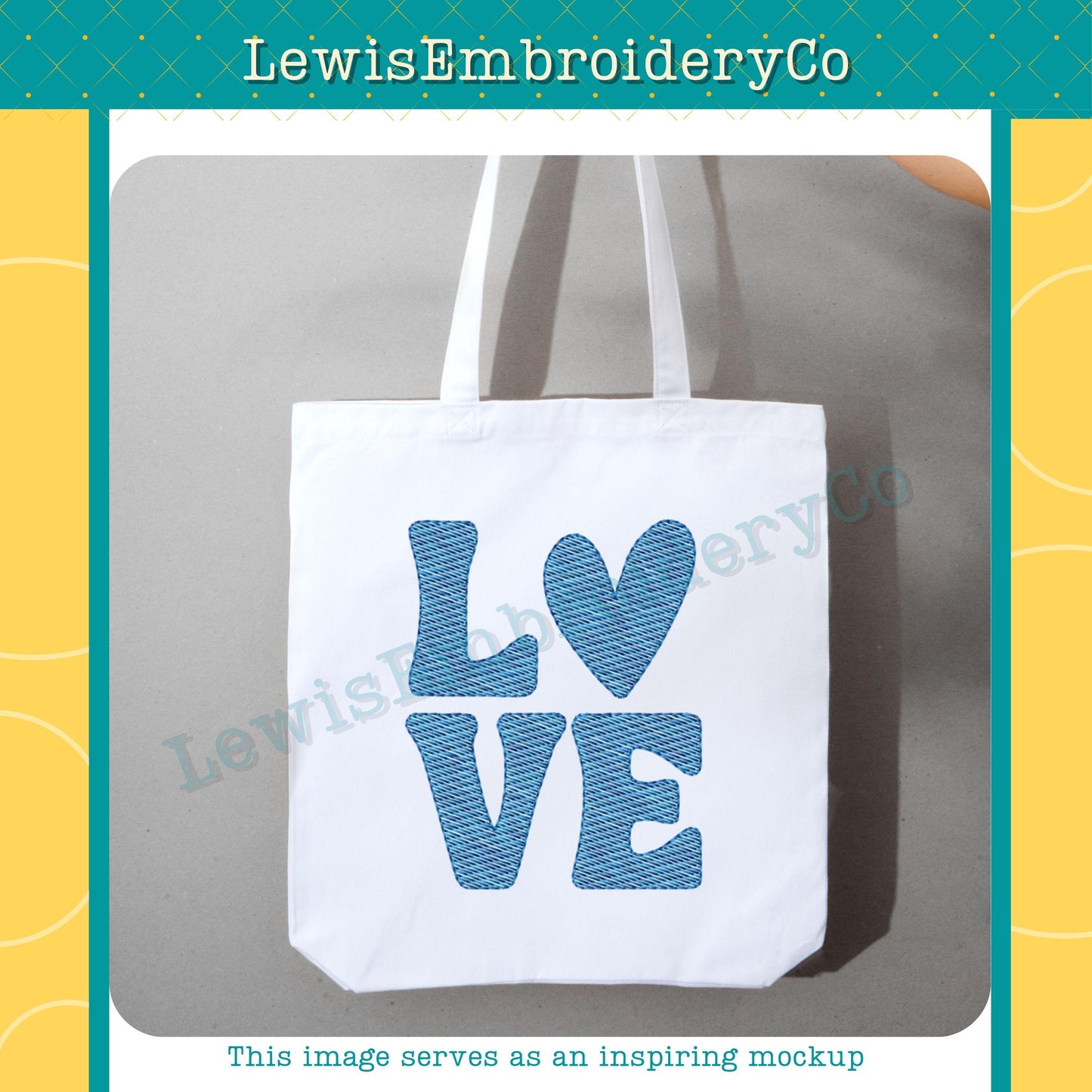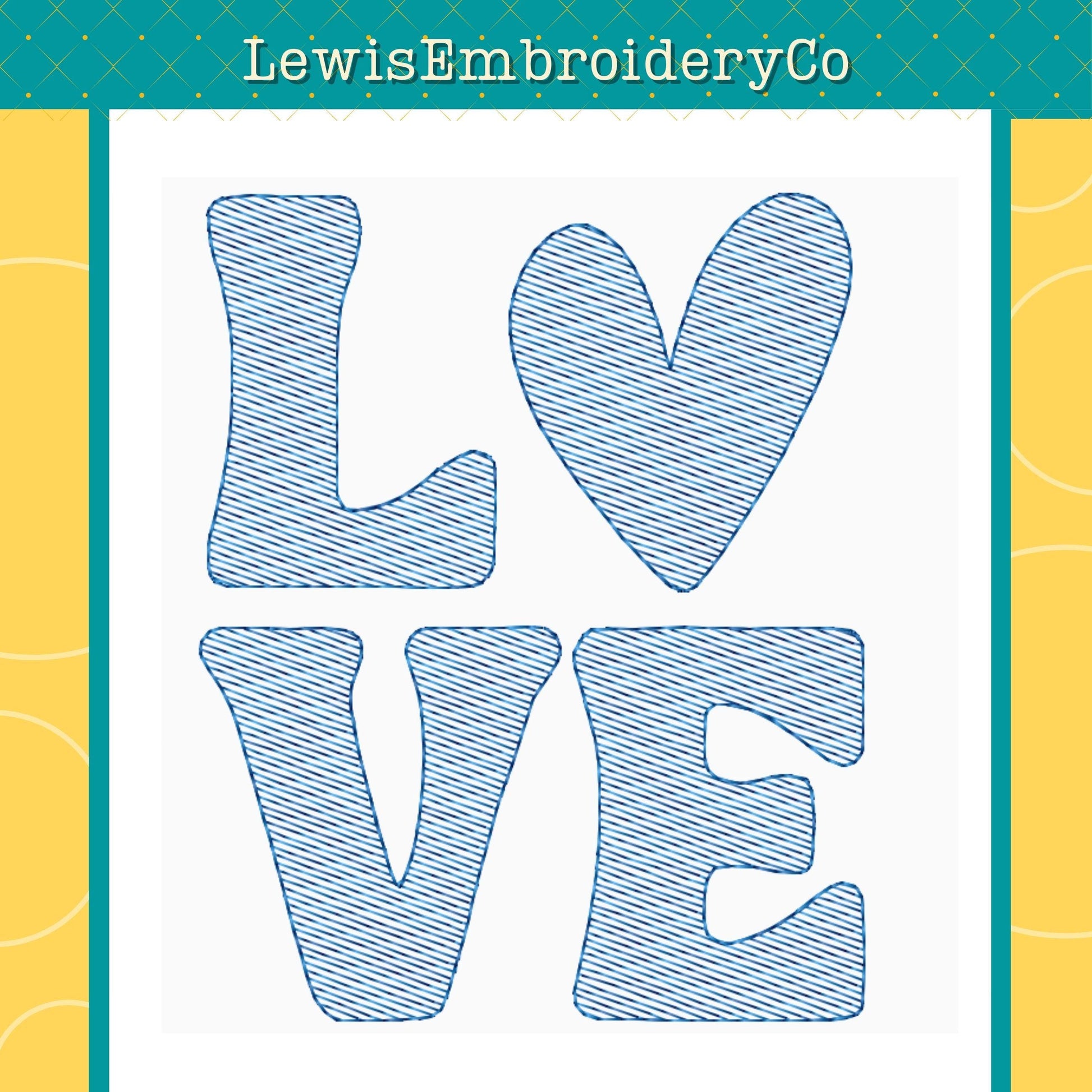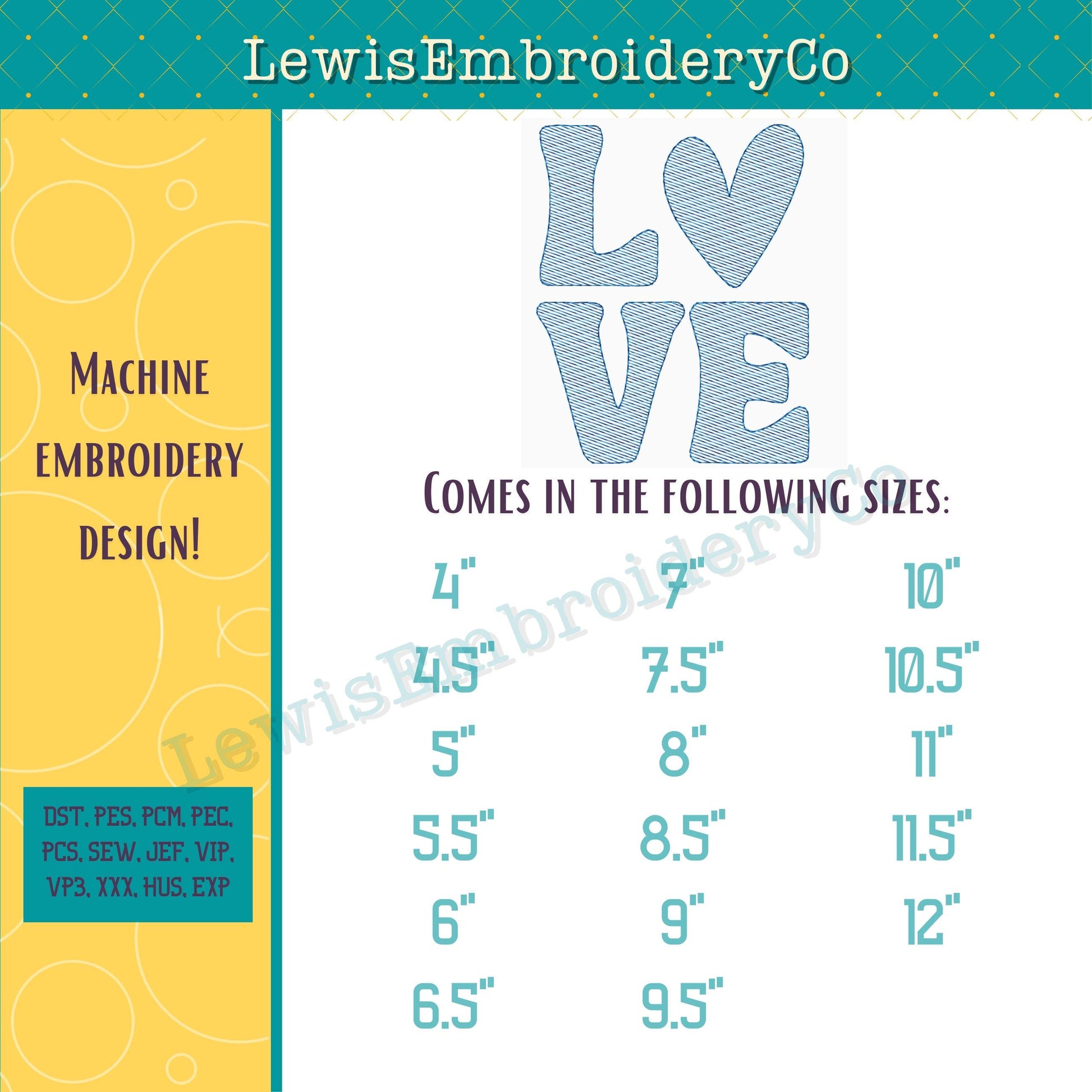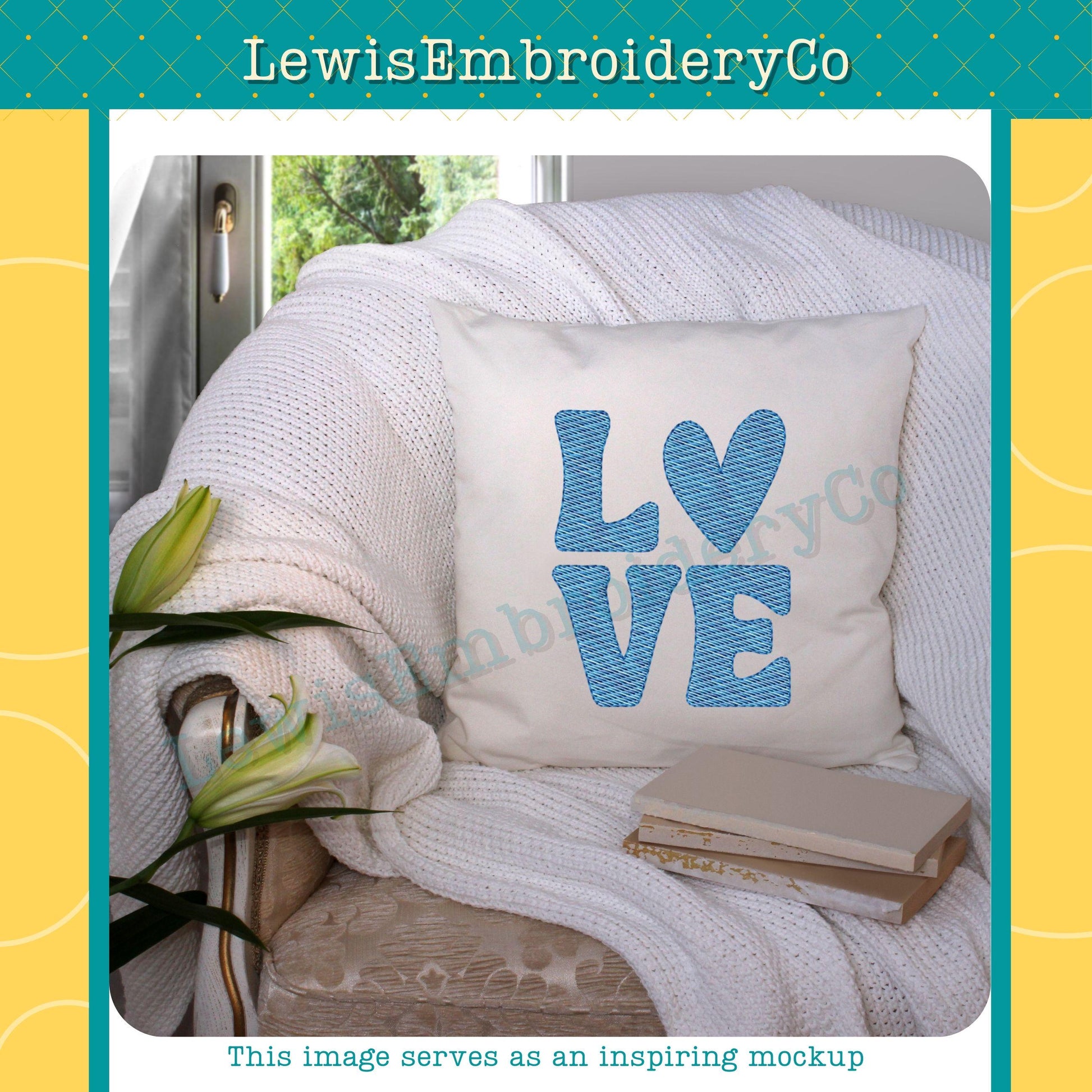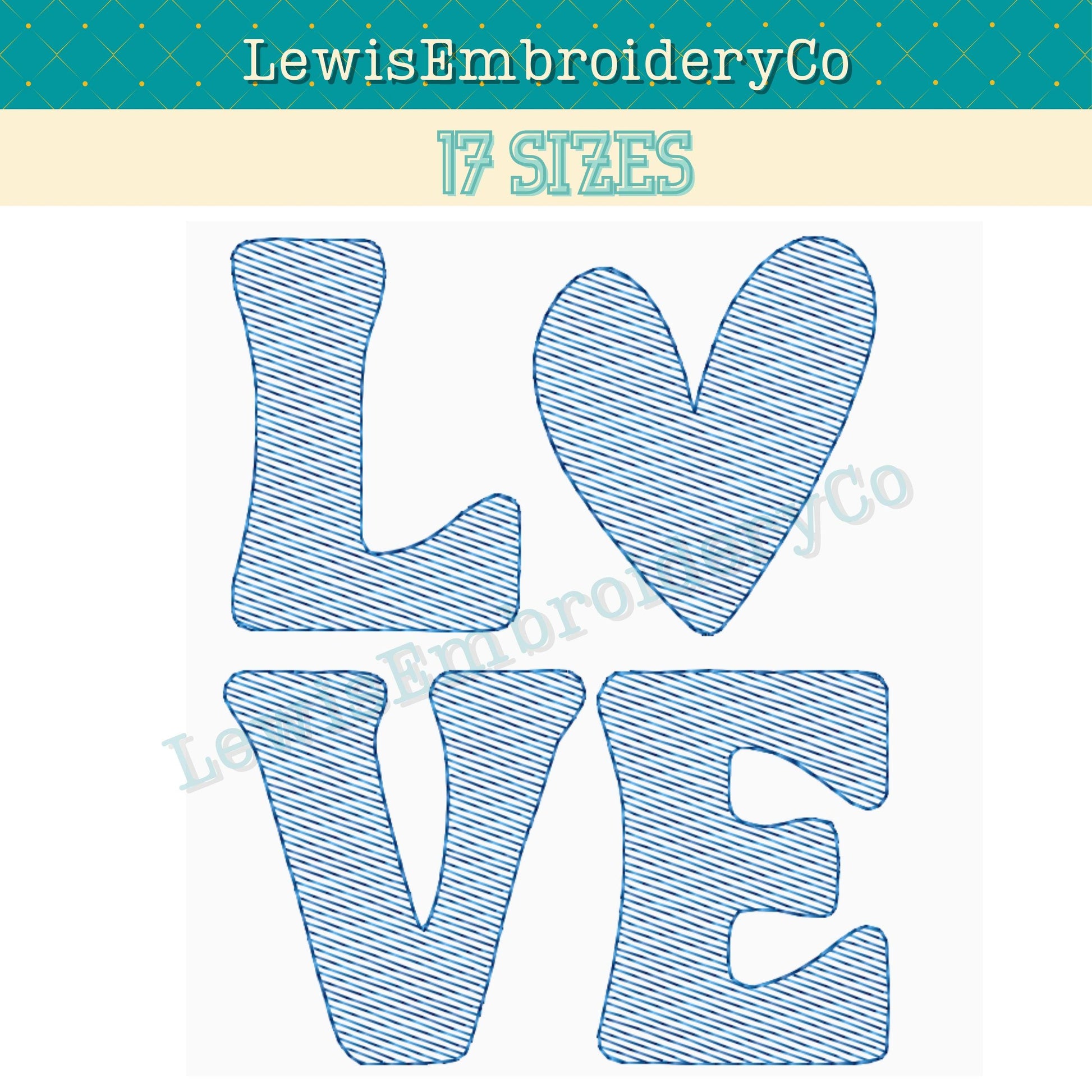
LOVE Quick Fill Sketch, Machine Embroidery Design - Not Full Font - (Digital Download)
LOVE Sketch Fill Embroidery Design - Block Love Design - Quick Fill Heart - Love Square - Love Heart Machine Embroidery